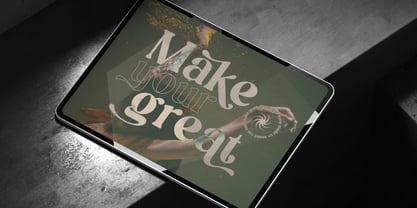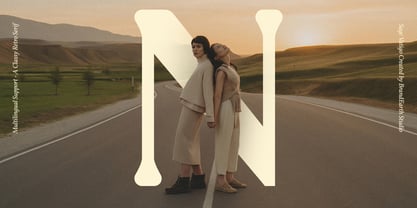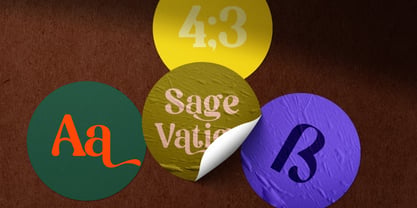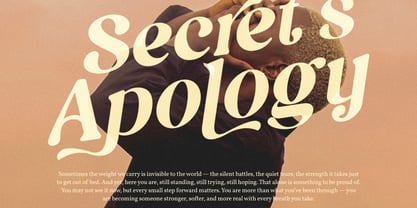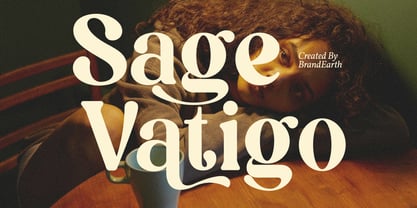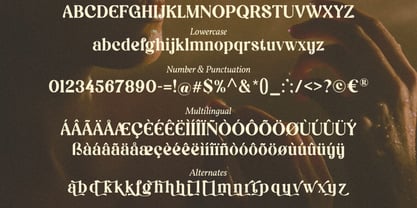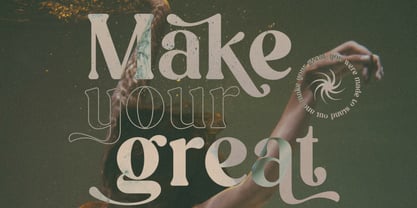
Sage Vatigo
by Brandearth
The Sage Vatigo Font Family was designed by Moch Rasjid Wiyono and published by Brandearth. Sage Vatigo contains 1 styles. More about this family
Sage Vatigo is a classy retro serif typeface inspired by vintage editorial design and timeless elegance. Featuring soft curves, refined serifs, and expressive alternates, this font blends nostalgic charm with modern sophistication. Its balanced contrast and graceful letterforms create a warm, luxurious presence perfect for high-end branding and stylish layouts. Sage Vatigo is highly relevant for fashion brands, boutique businesses, beauty products, lifestyle blogs, editorial magazines, wedding stationery, luxury packaging, café branding, and personal branding projects. Its retro elegance makes it perfect for businesses seeking warmth, sophistication, and a premium vintage-inspired identity.
Designers: Moch Rasjid Wiyono
Foundry: Brandearth